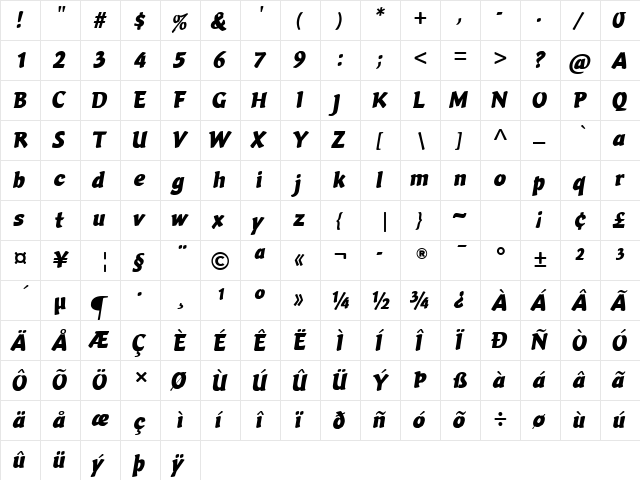
Vario Com Italic
| Foundry | Linotype GmbH |
| Designer | Hermann Zapf |
Design Context for Vario Com Typeface
Vario Com offers clean, dependable letterforms without strong stylistic allegiance, making it a practical choice for designers who need flexibility. The slanted form adds forward momentum and visual energy.
Pro Tip: Try Vario Com for annotation and caption copy alongside an upright companion — the contrast in angle creates a dynamic but ordered typographic system.